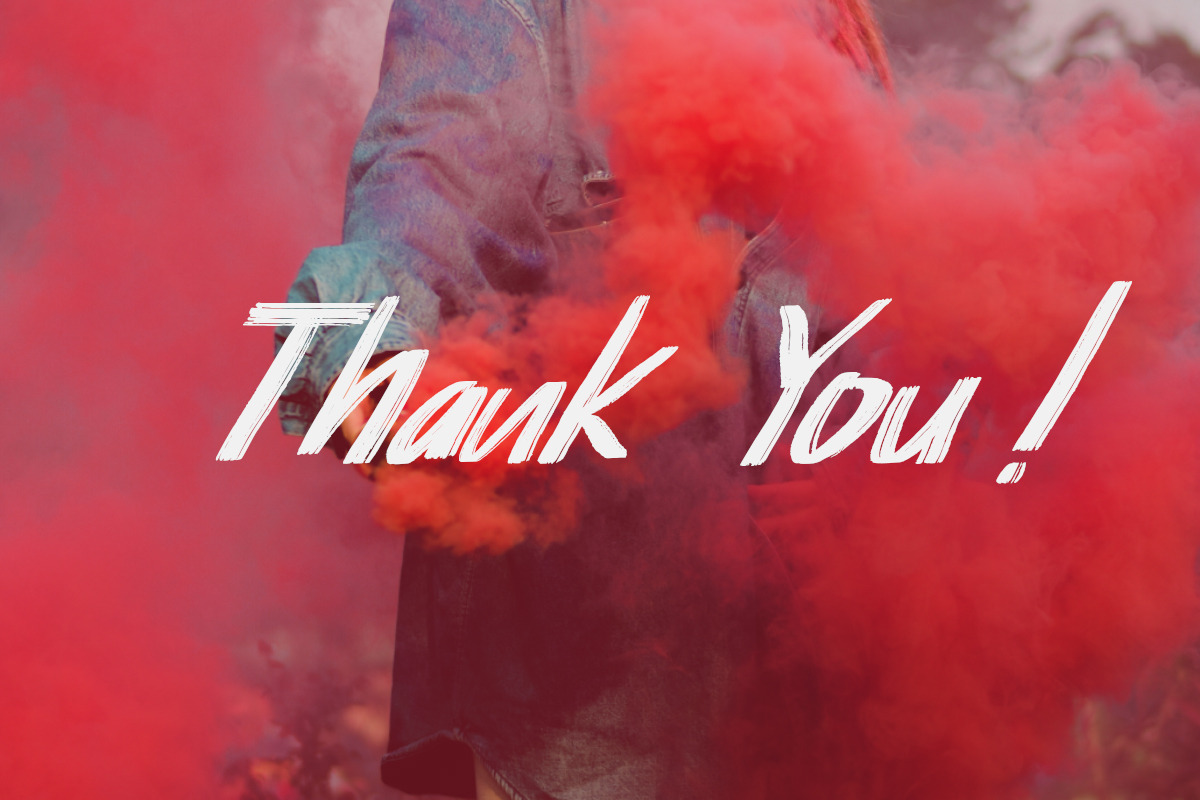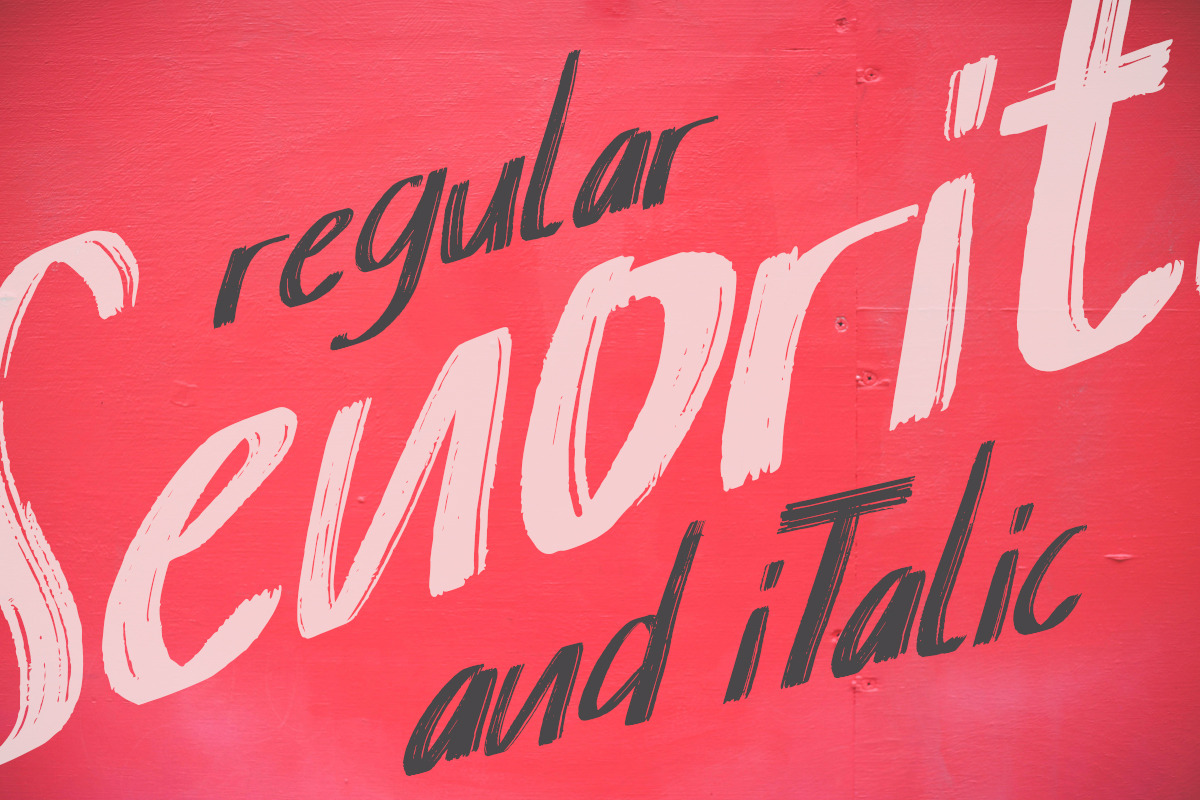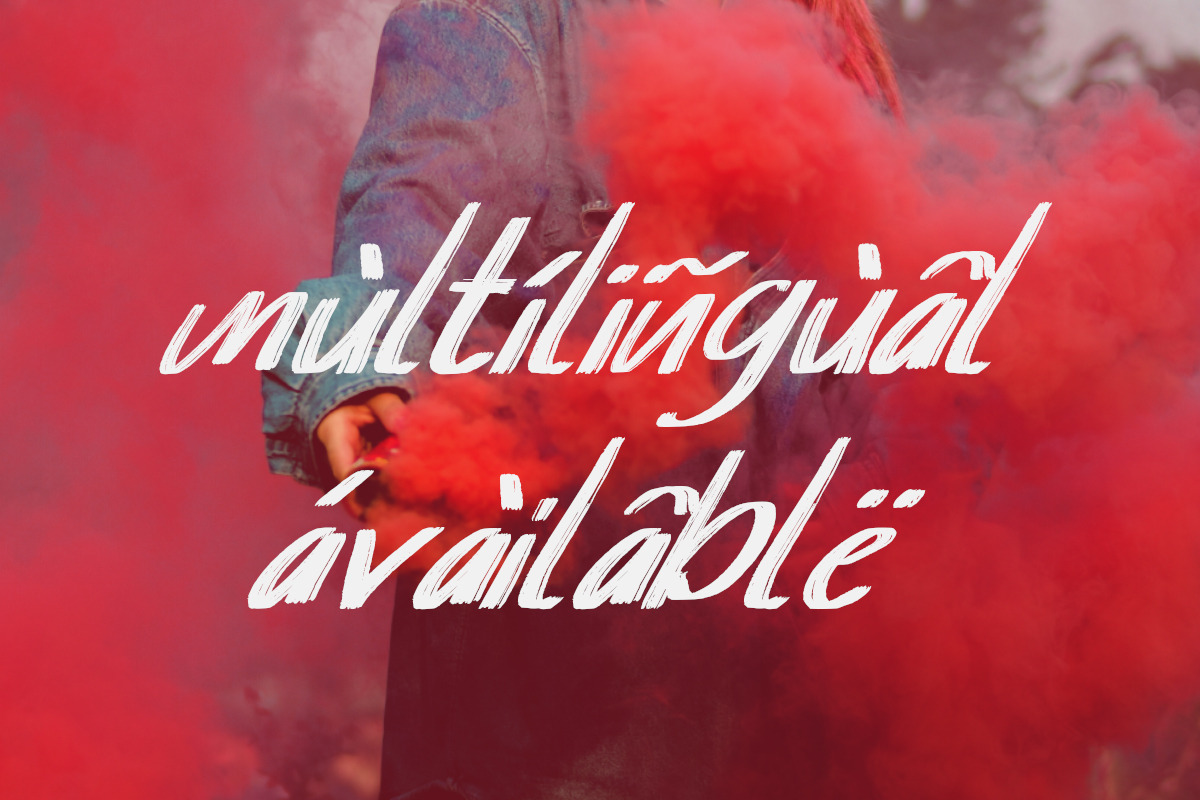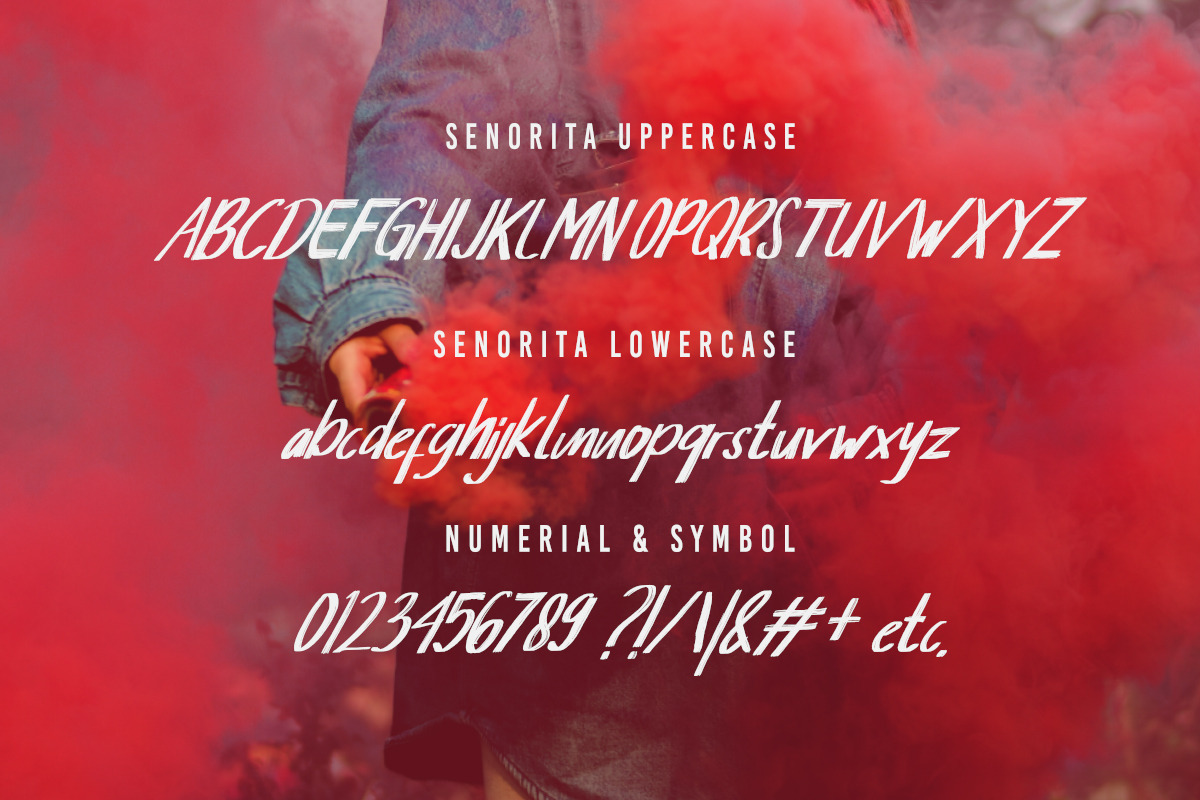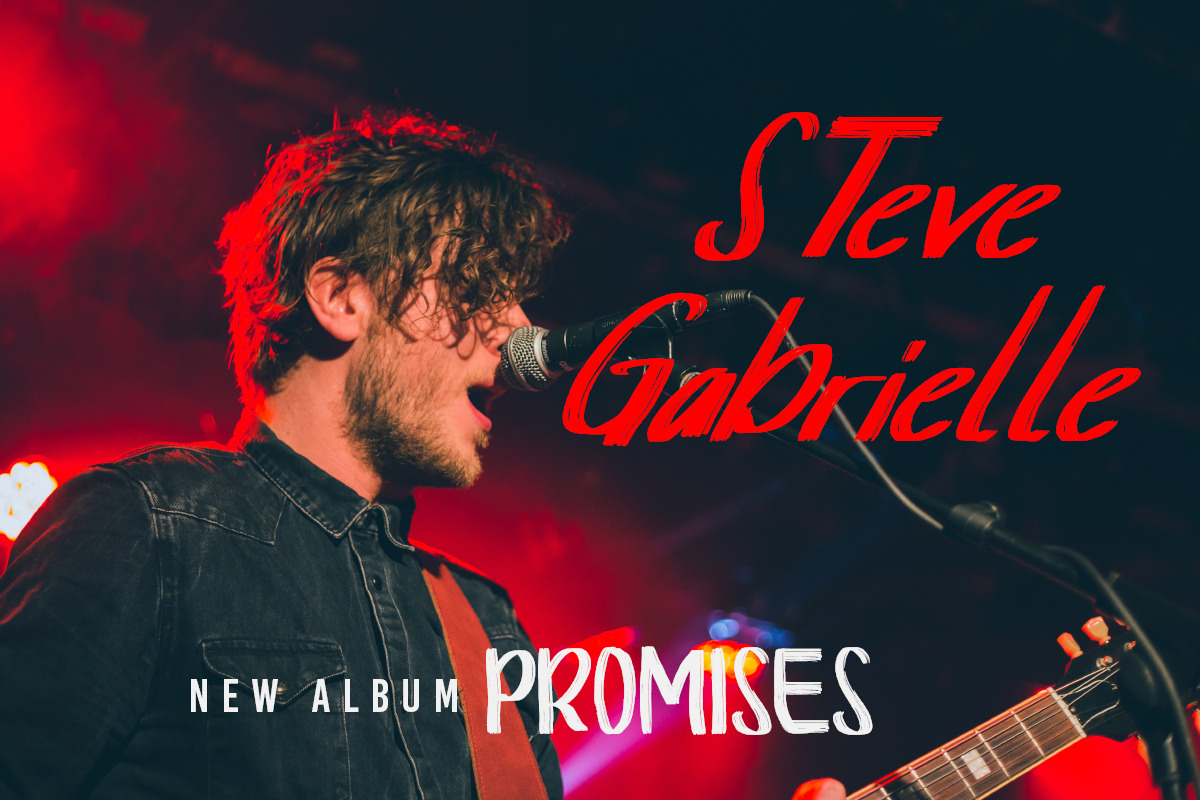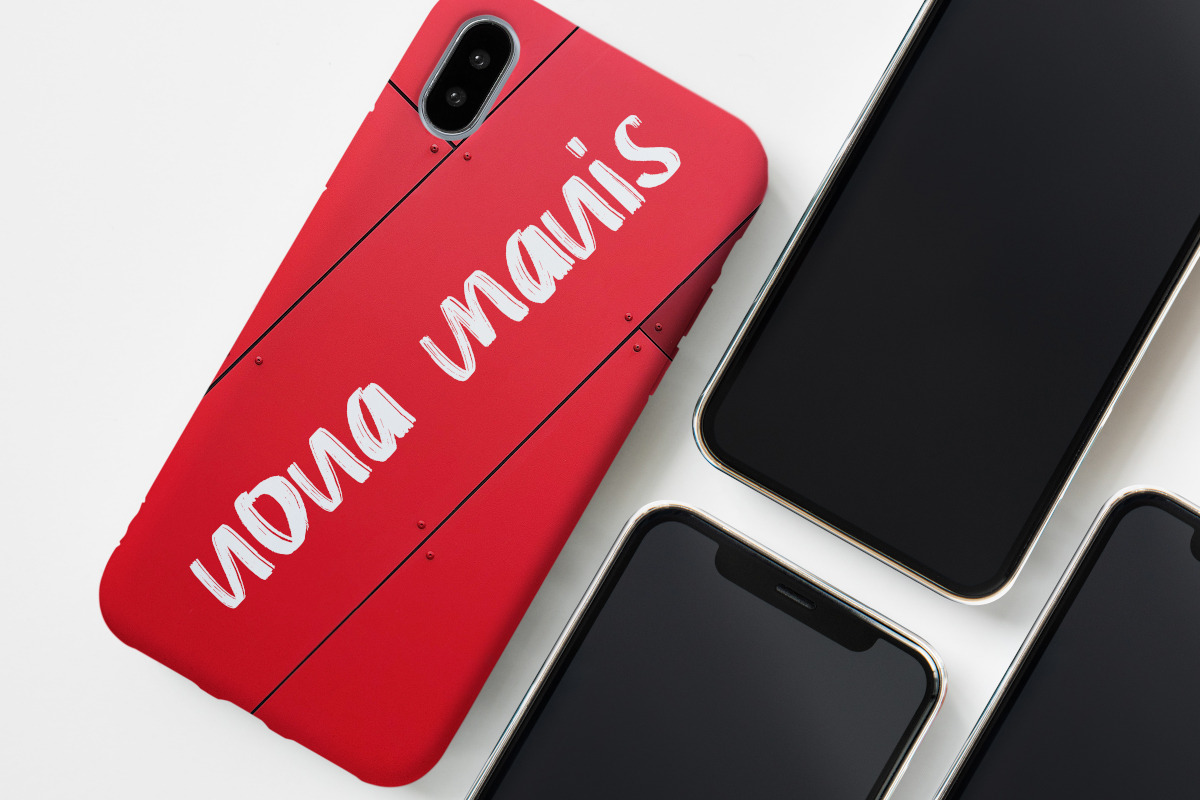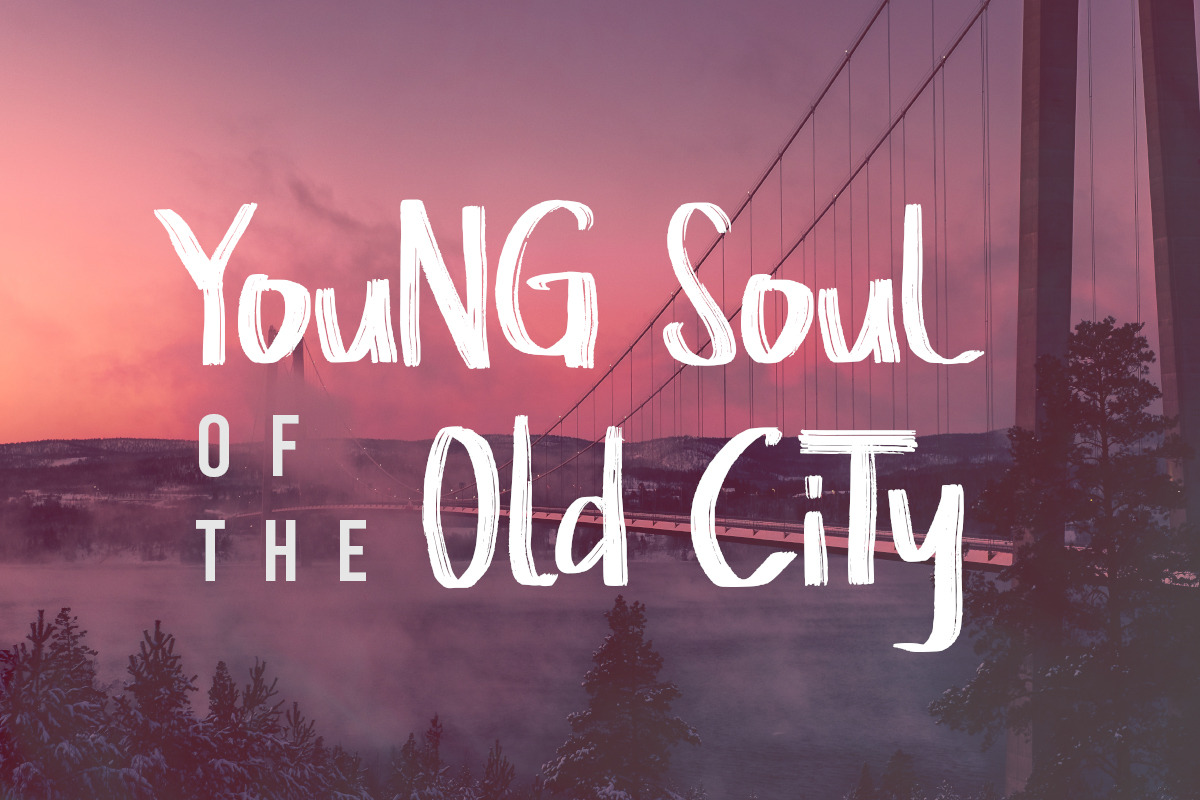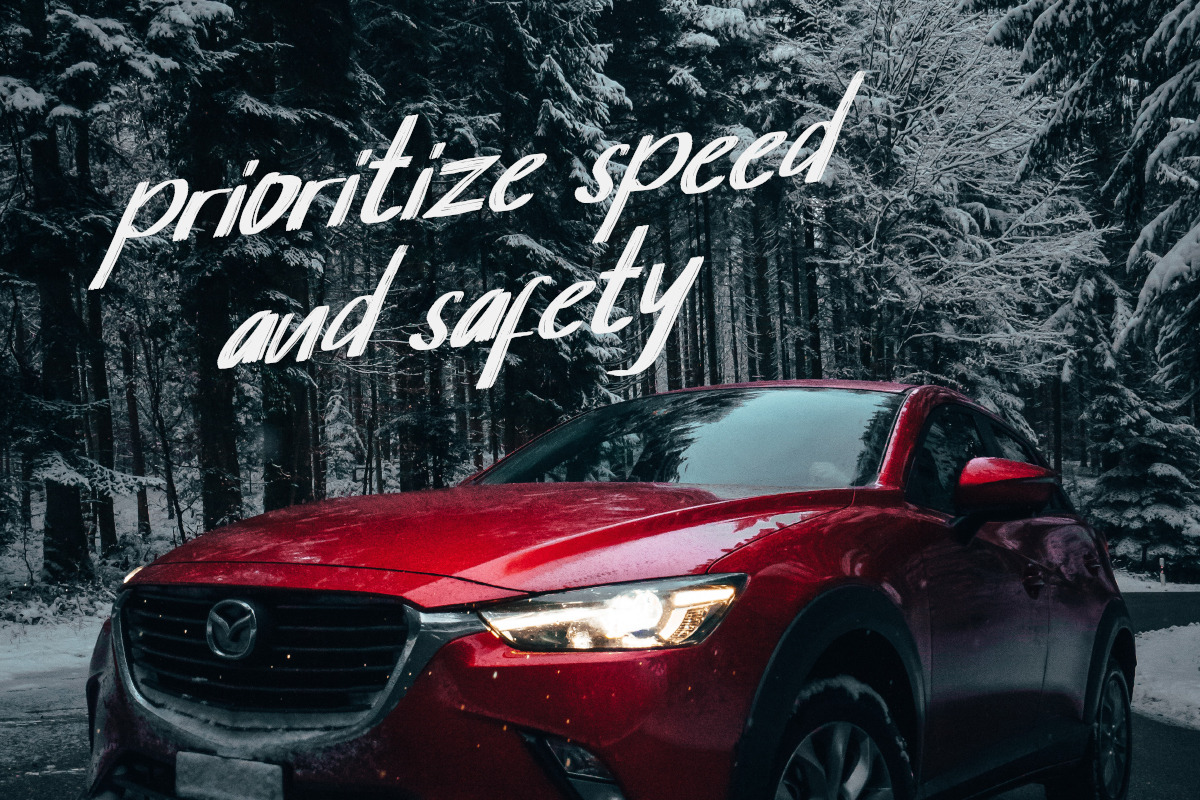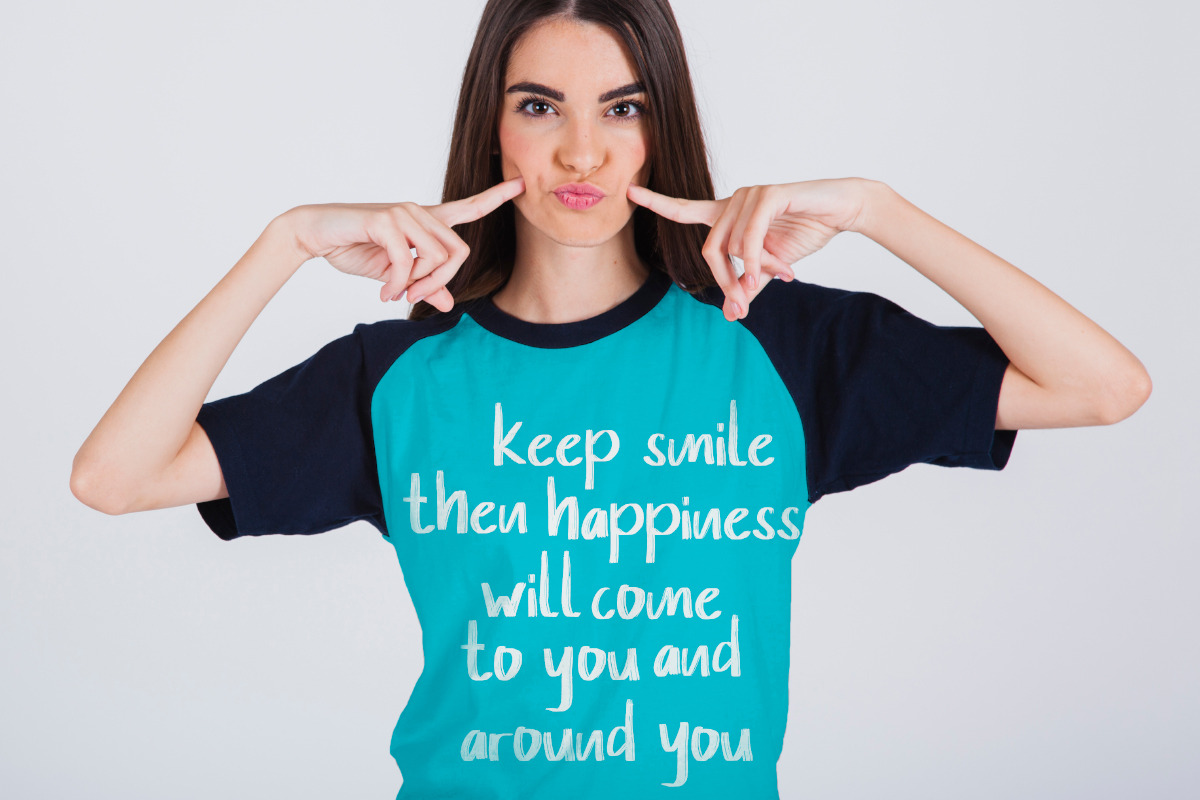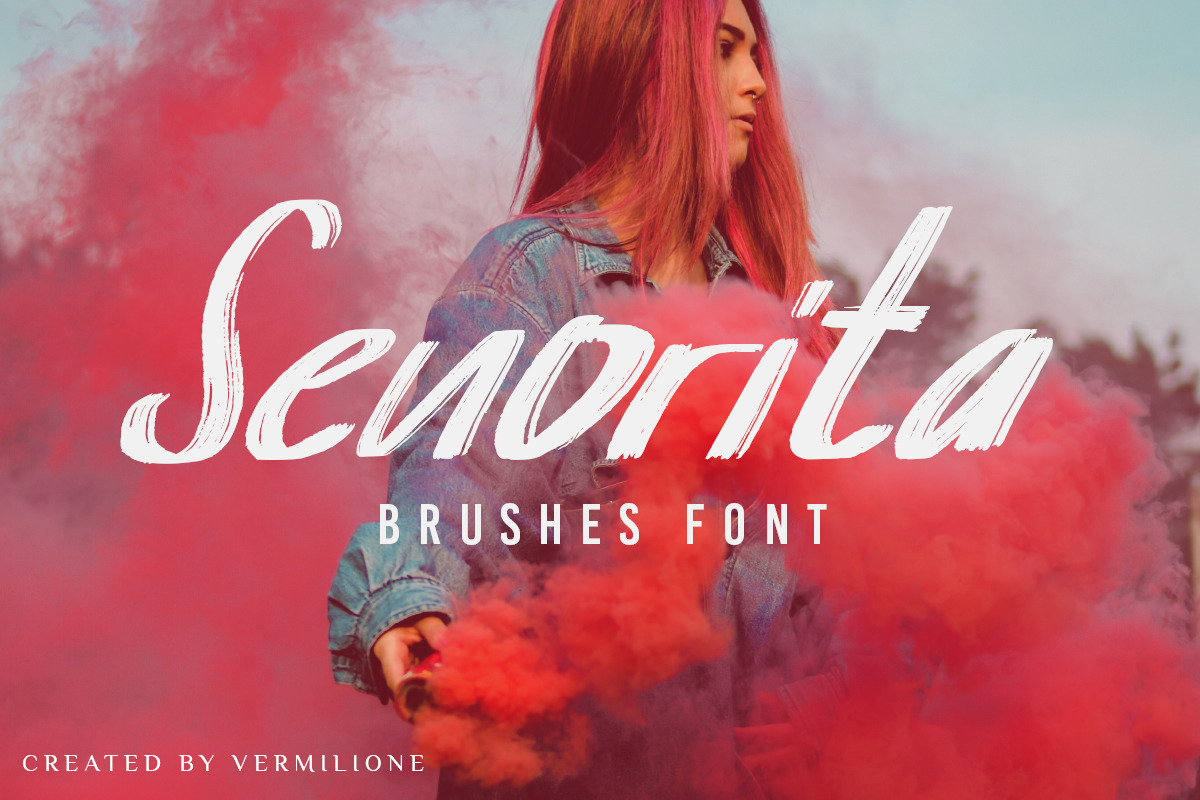
Senorita Brushes Font
Introducing Senorita, a handmade brush font! This bold, free-flowing and confident brush font is designed to be easily customisable with 2 types Regular and Italic! Oh, and not to mention it looks great in both all-caps as well as lowercase - all of this together providing you with a options. Senorita is a brush font which you can use and enjoy again and again, for anything from promotional material and handwritten quotes, to product packaging, merchandise and branding projects.